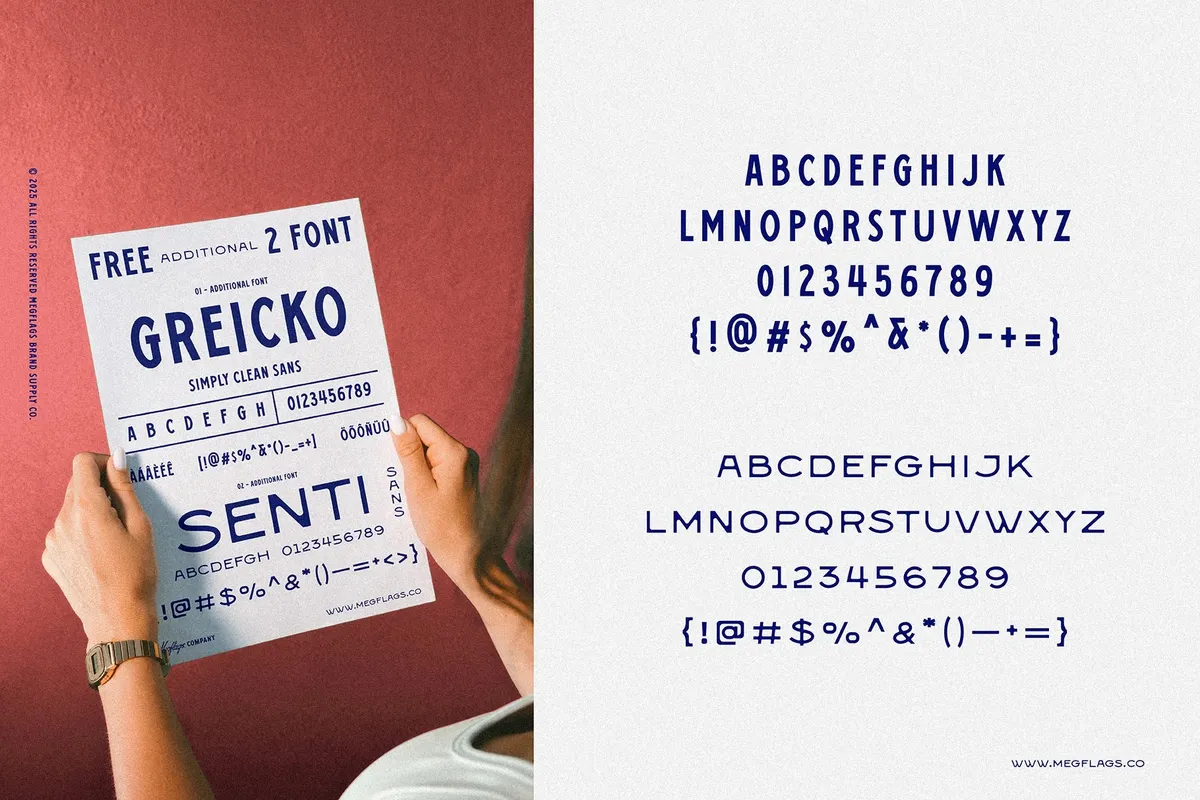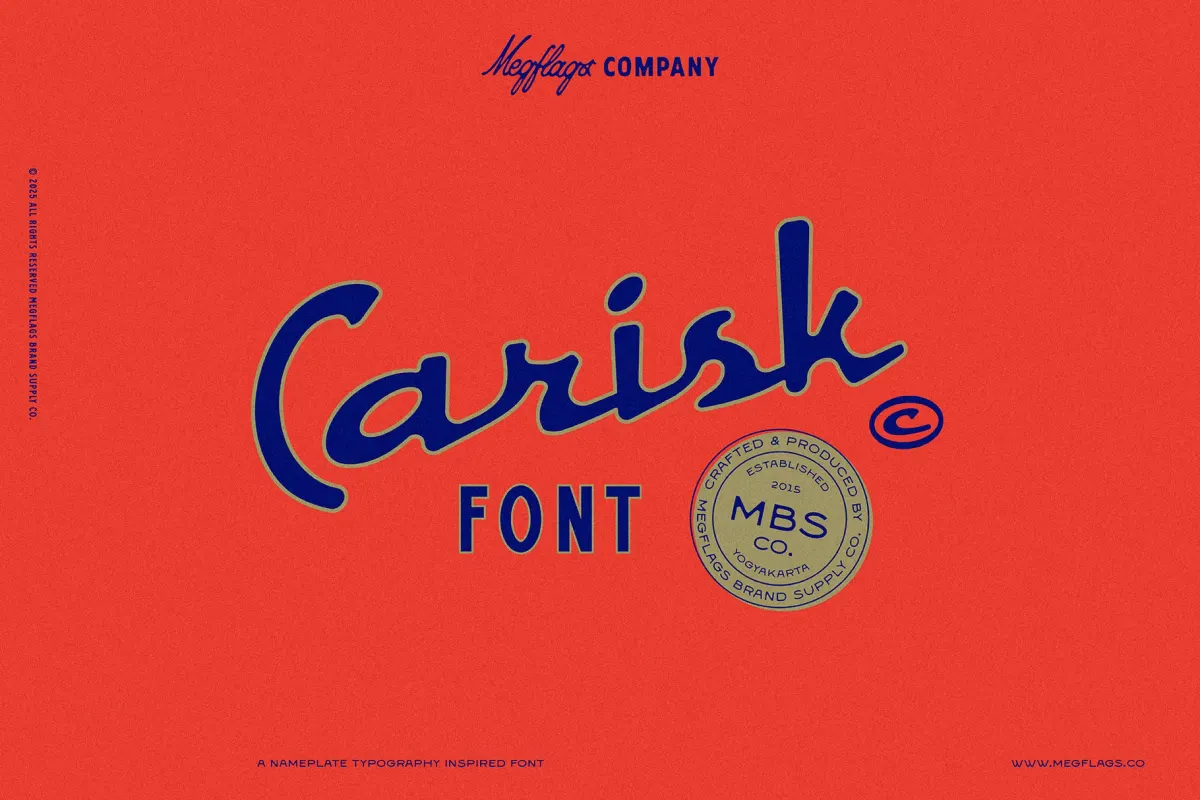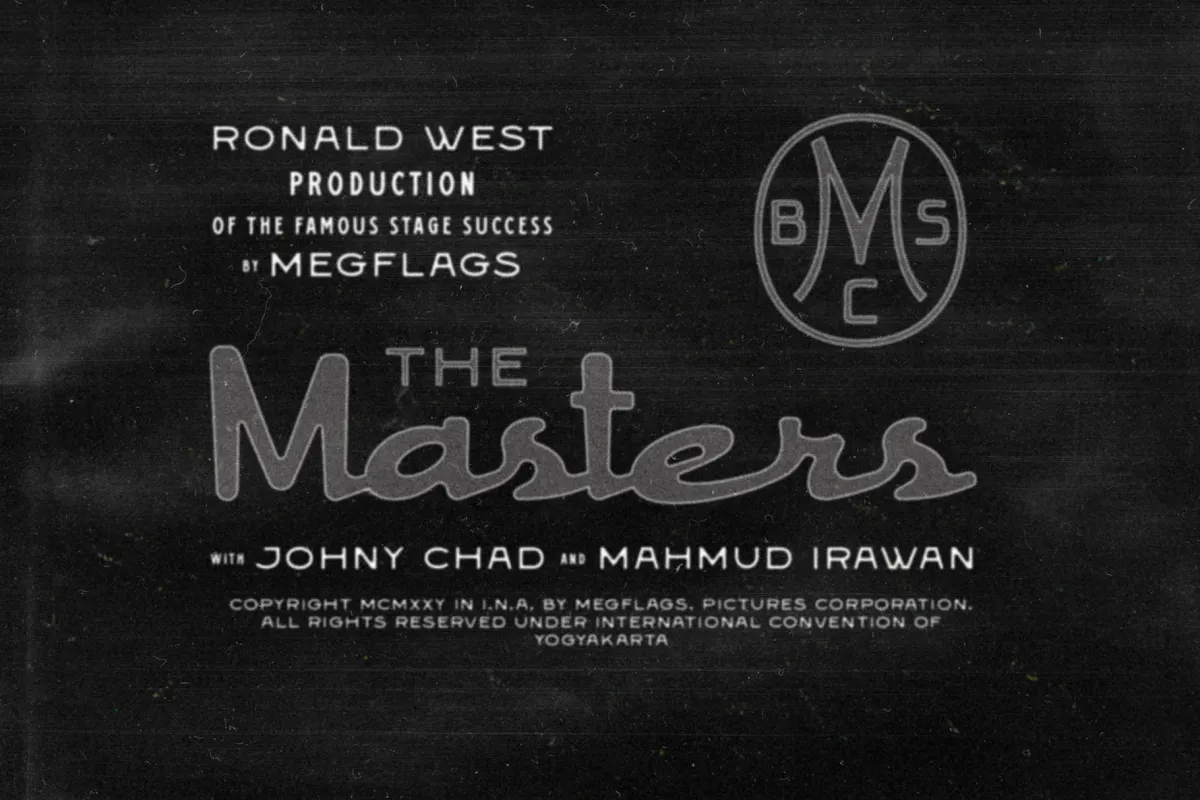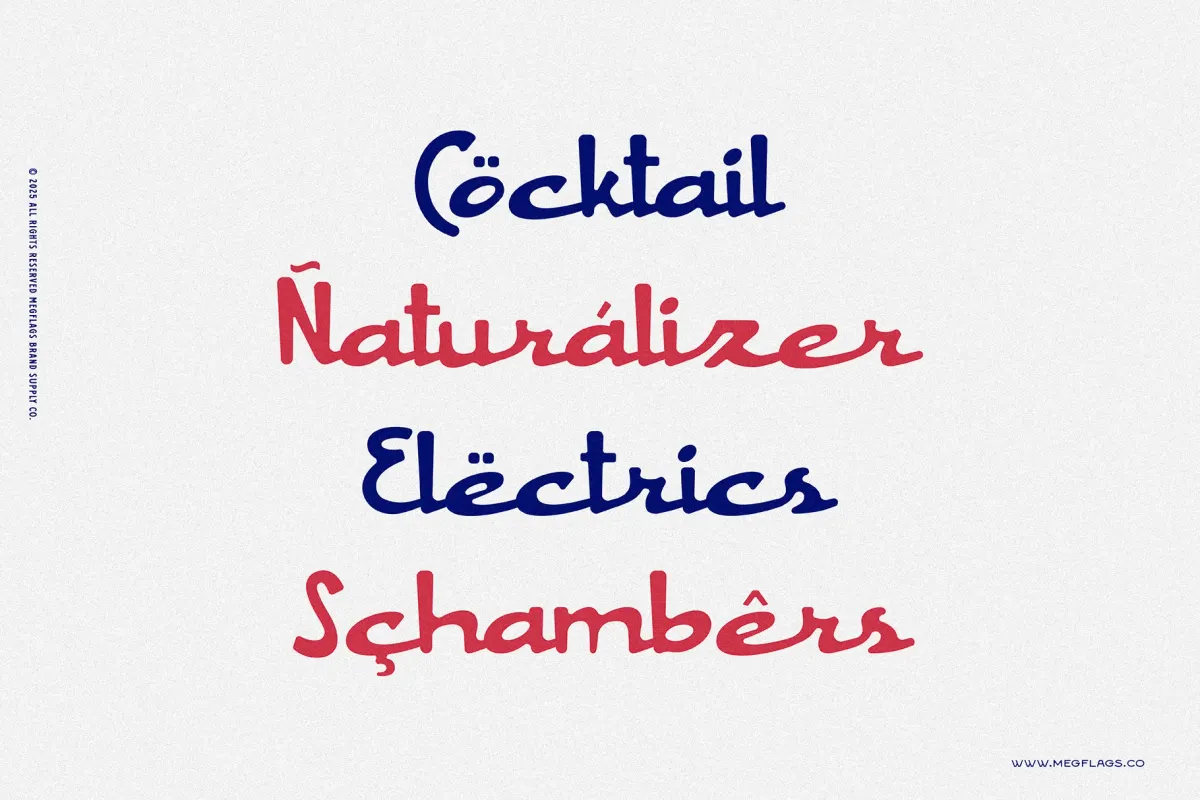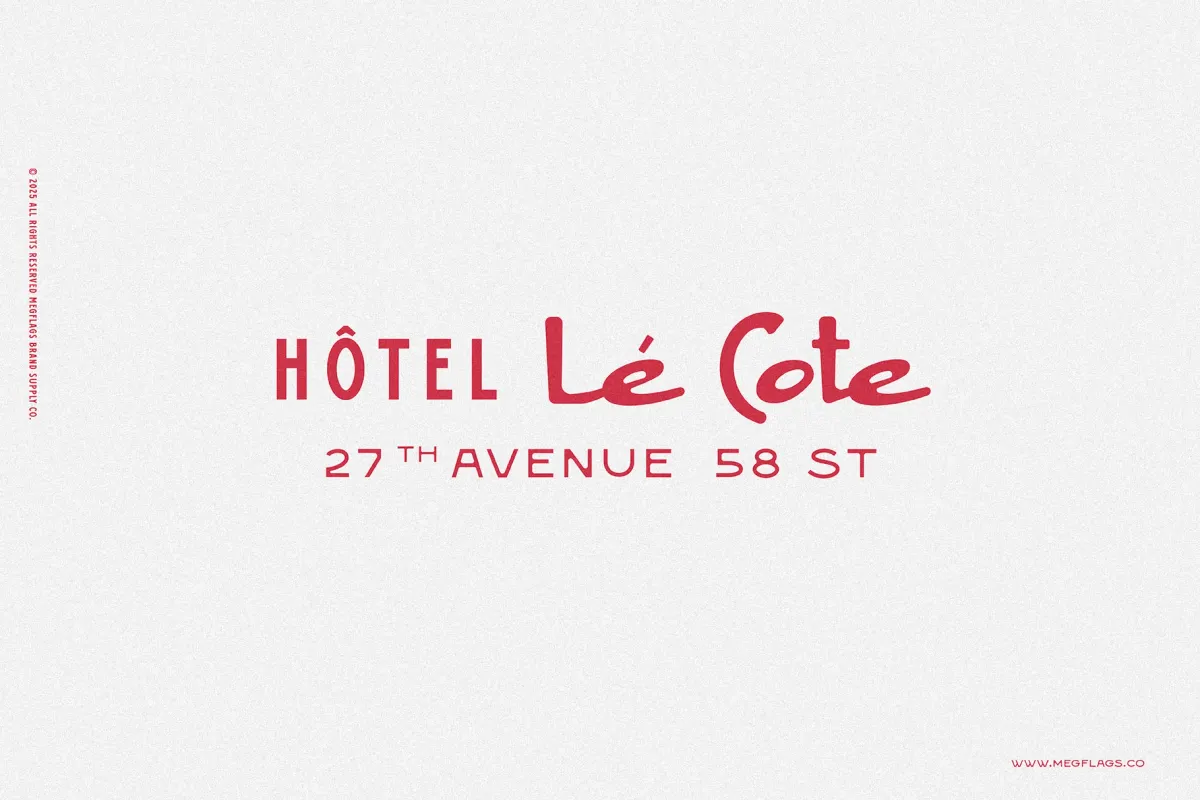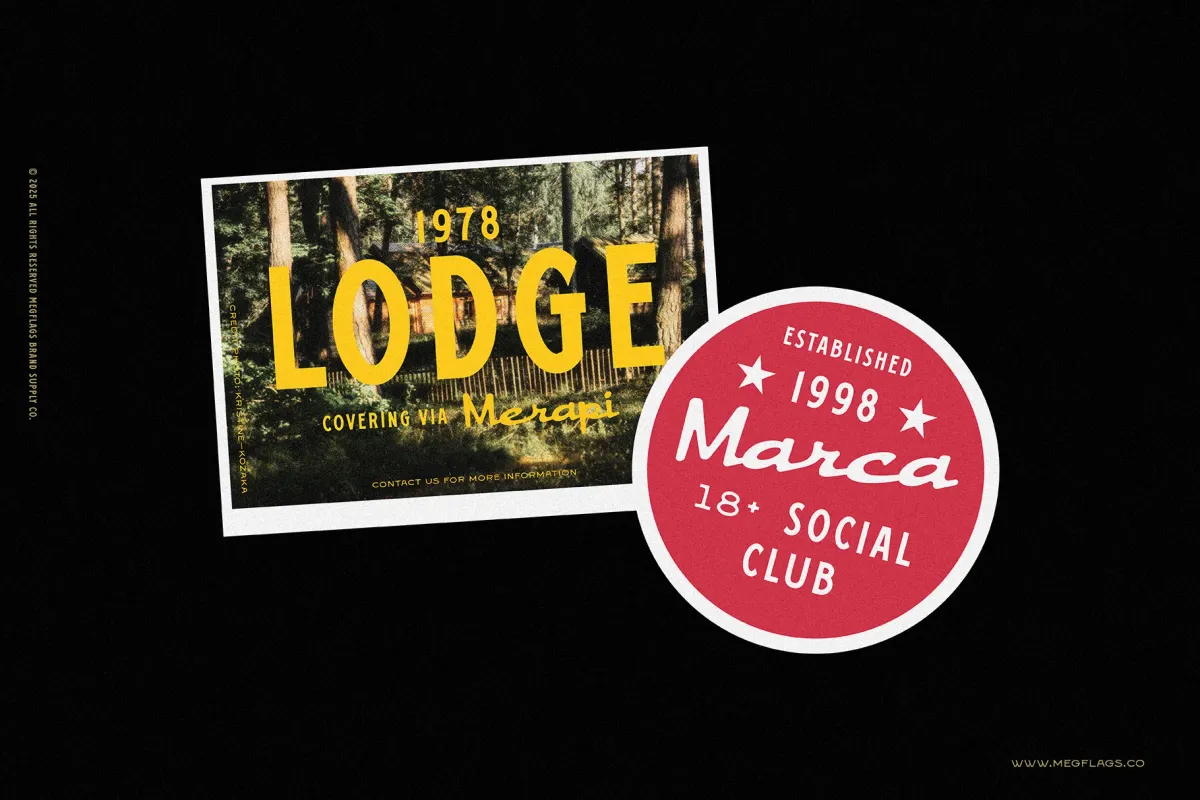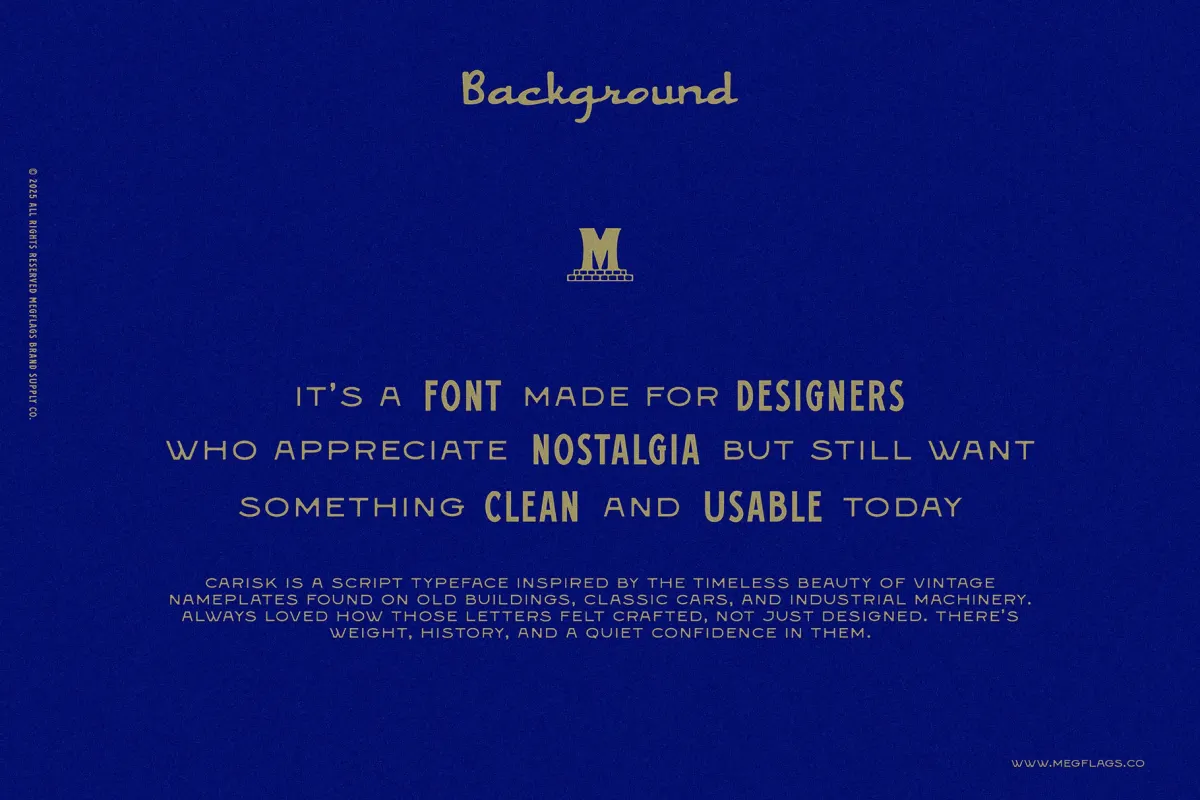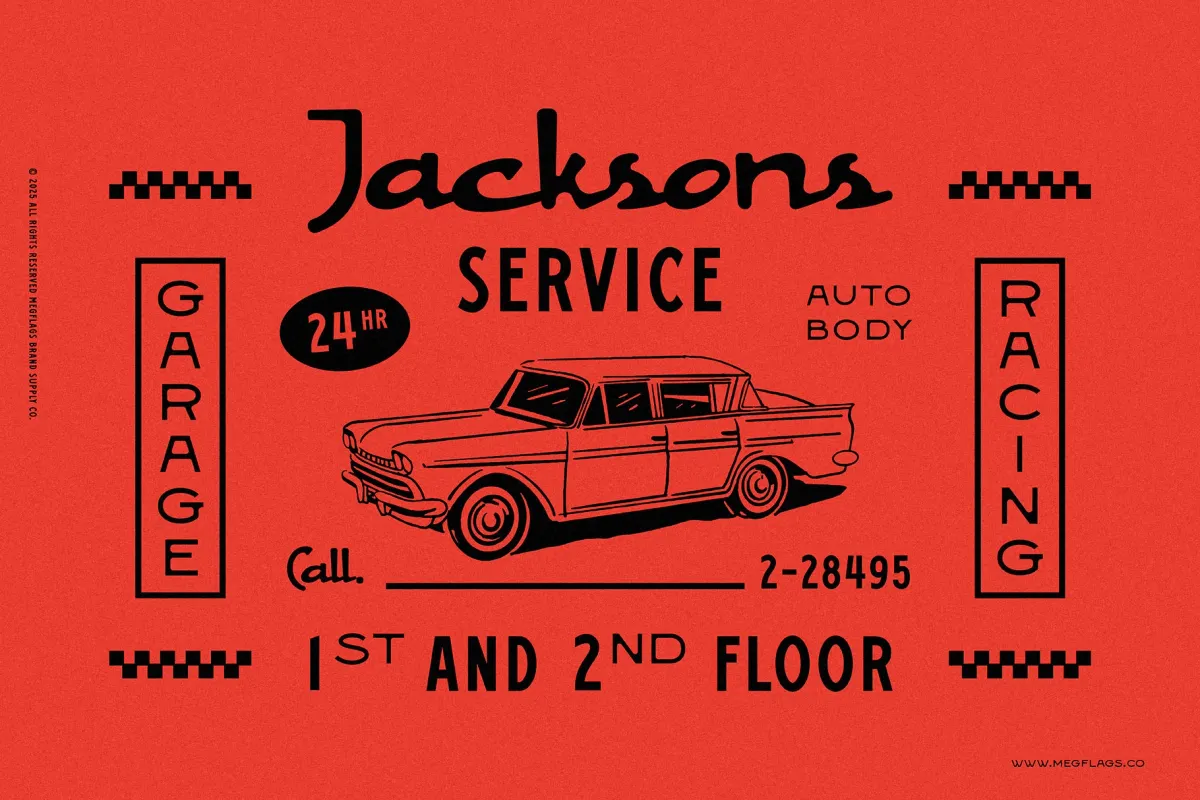
Carisk Font Trio
Carisk's cast-metal script voice channels European coachbuilt emblems — Riviera coupes, Parisian garage signage, and enamel dealer badges. The rounded strokes glide like chrome, with steady monoline weight, soft joins, and a gentle downstroke swing. They read bold and friendly, closer to nameplate lettering than calligraphy, which makes wordmarks snap into place on labels, posters, and chassis-style badges.
The style borrows cues from real marques. French: Citroën, Peugeot, Renault model scripts like Dauphine and Caravelle, Simca, Panhard, Facel Vega. Italian: Alfa Romeo model scripts (Giulietta/Giulia), Lancia (Aurelia/Flaminia scripts), Maserati, early Lamborghini cursive (350 GT era), Abarth, Vespa/PIAGGIO.
- Heritage automotive branding — primary wordmarks, trunk badges, dealer stickers.
- Garages and workshops — uniforms, oil-stained rags, invoice headers, key tags.
- Posters and ephemera — concours flyers, hill-climb bills, road-trip zines.
- Merch and memorabilia — enamel pins, license-plate frames, windshield banners.
- Cafés and bistros — menu scripts, window gold leaf, receipt headers.
- Packaging systems — soap wraps, candle sleeves, matchbooks, belly bands.
- Personal projects — signature logos, stationery, return-address stamps.
- Uppercase letters, numbers, and punctuation.
- Full multilingual support for Western European languages.